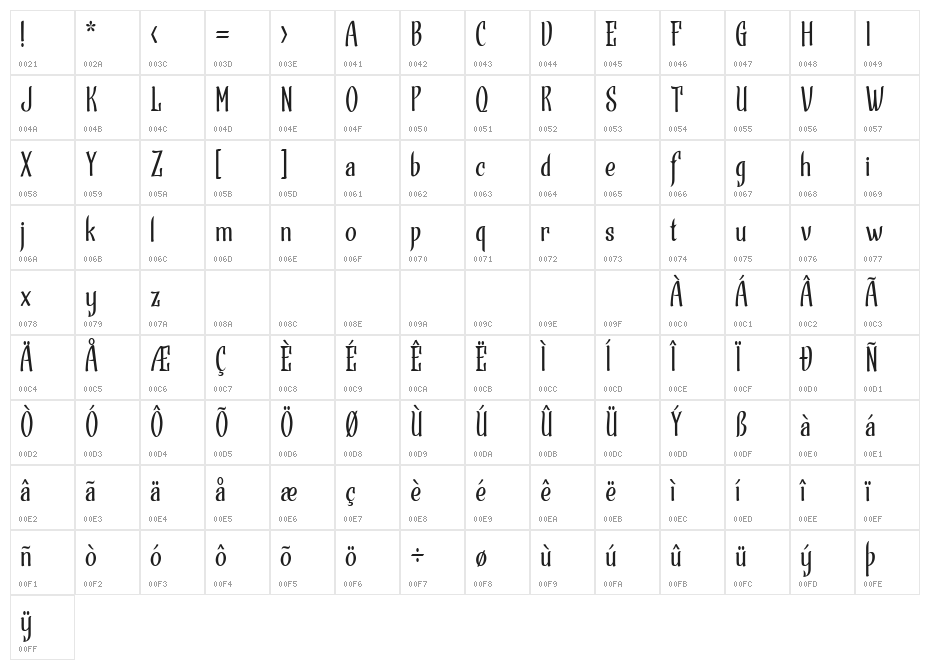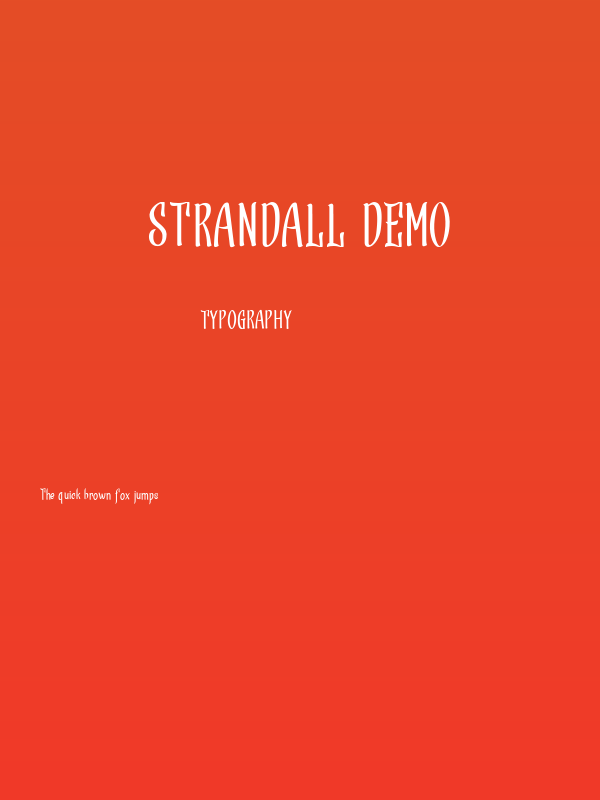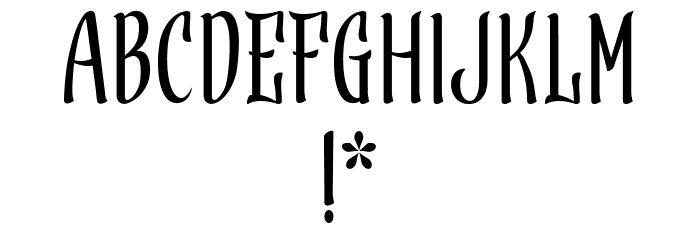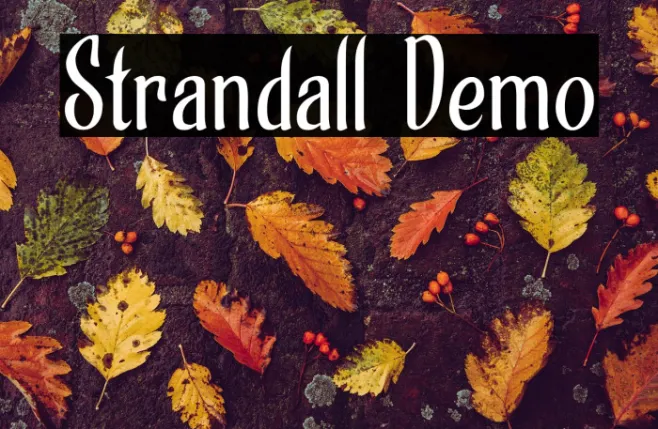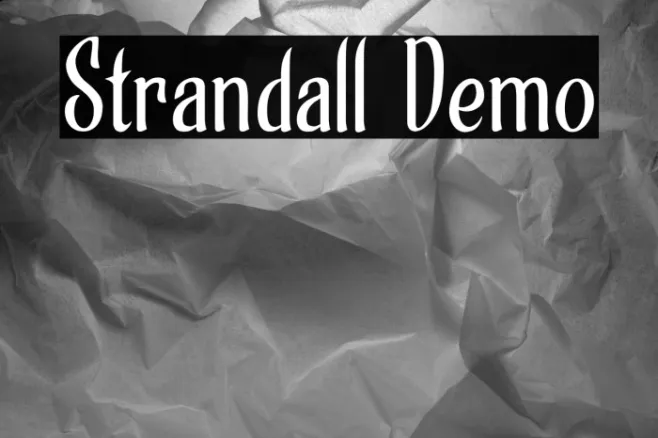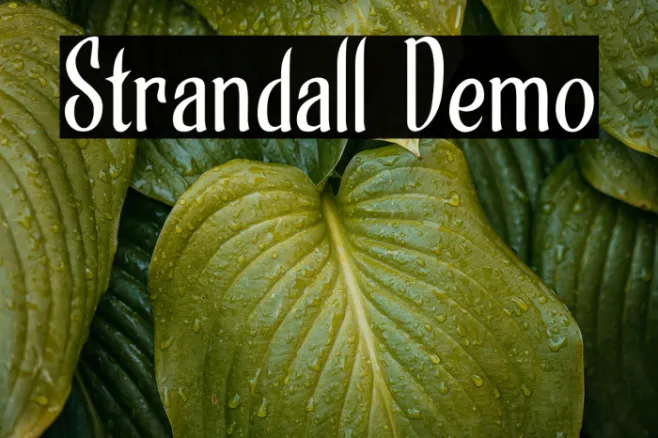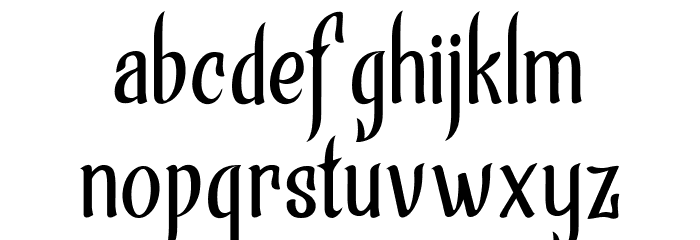
Strandall Demo Font
Strandall Demo Description
This font features a unique blend of elegance and playfulness, characterized by its tall, narrow letterforms and subtle curves. The uppercase letters exhibit a distinct flair with slightly exaggerated serifs, giving them a whimsical yet sophisticated appearance. The lowercase letters maintain a consistent style, with smooth transitions and a slightly condensed form that complements the uppercase. The numerals and special characters follow the same design principles, ensuring a cohesive look across all text. This font's overall aesthetic is both modern and decorative, making it suitable for a variety of creative applications.